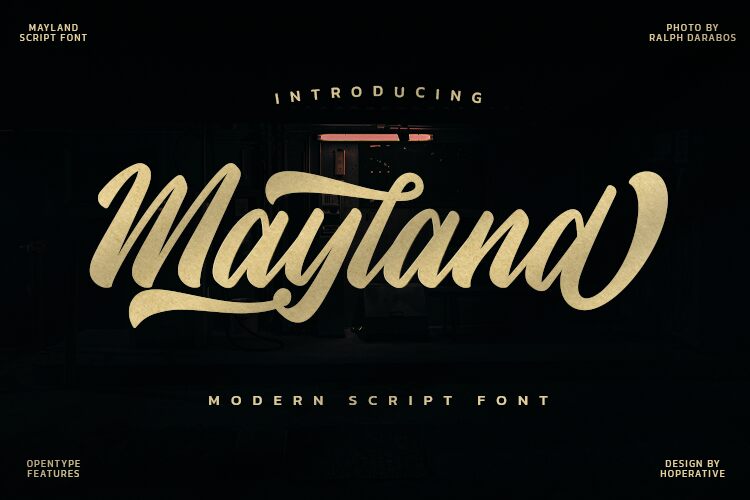
The Mayland font features a unique handwritten script style by designer Hamber Perdiansyah. Its narrow width adds an elegant touch to any project, making it perfect for invitations, wedding stationery, logos and more.